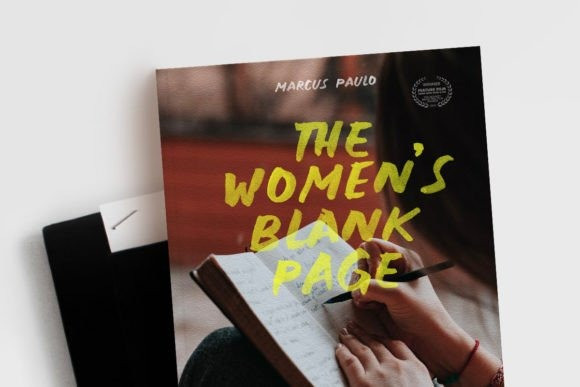
Natural Rough Brush Font is an enchanting script font with a delightful organic feel. This font features graceful and flowing letterforms with a charmingly hand-drawn appearance. Perfect for adding a touch of elegance to invitations, logos, or any creative project in need of a whimsical touch.